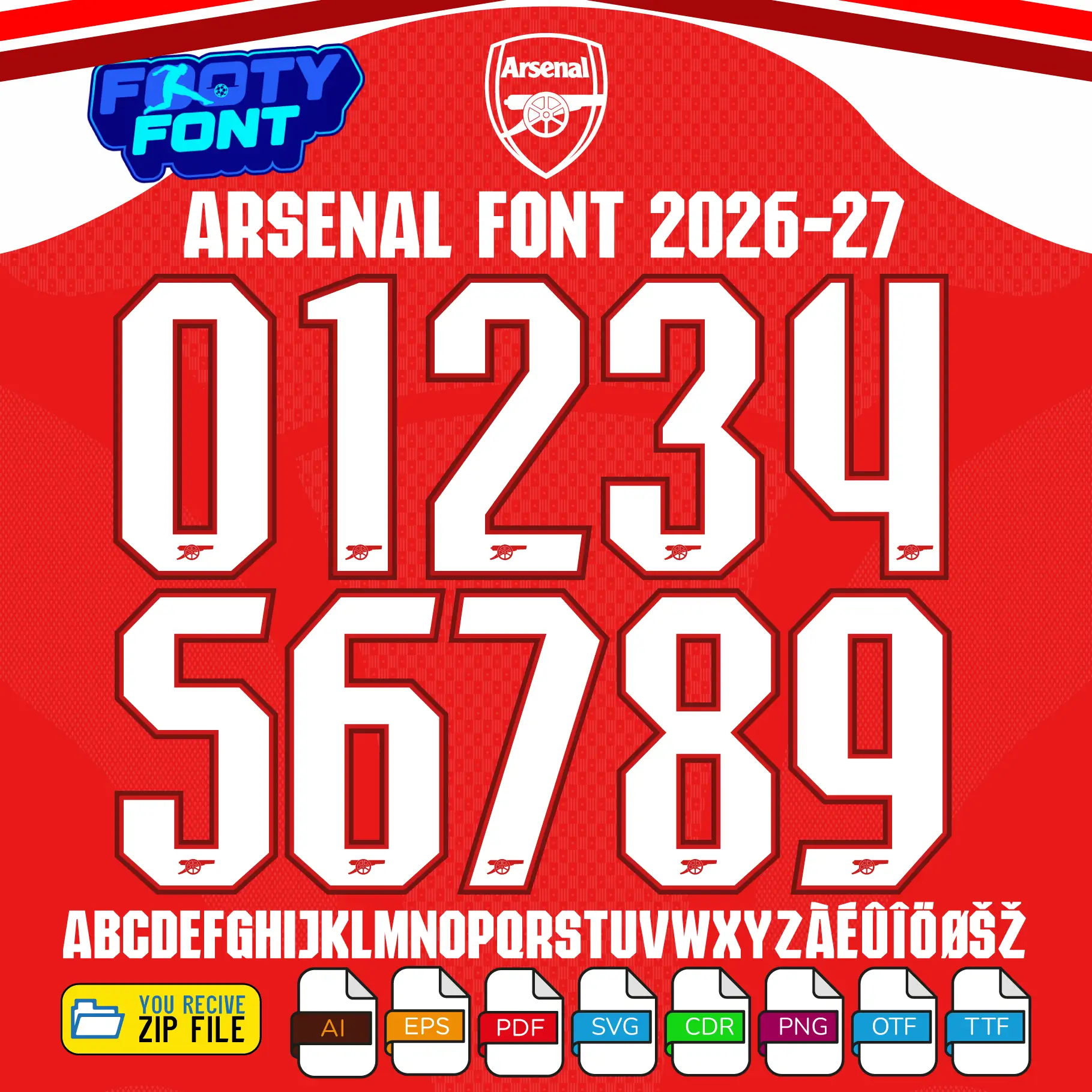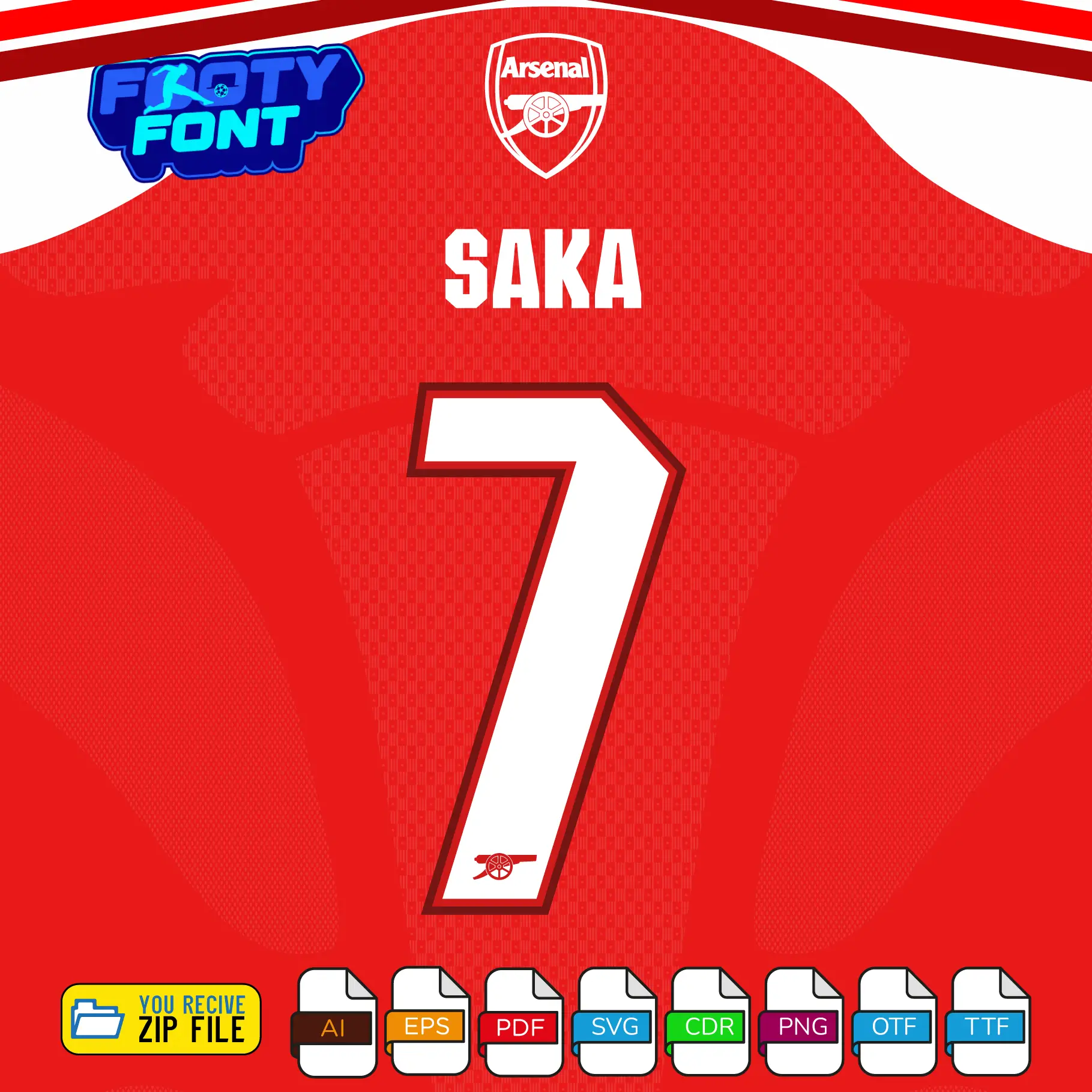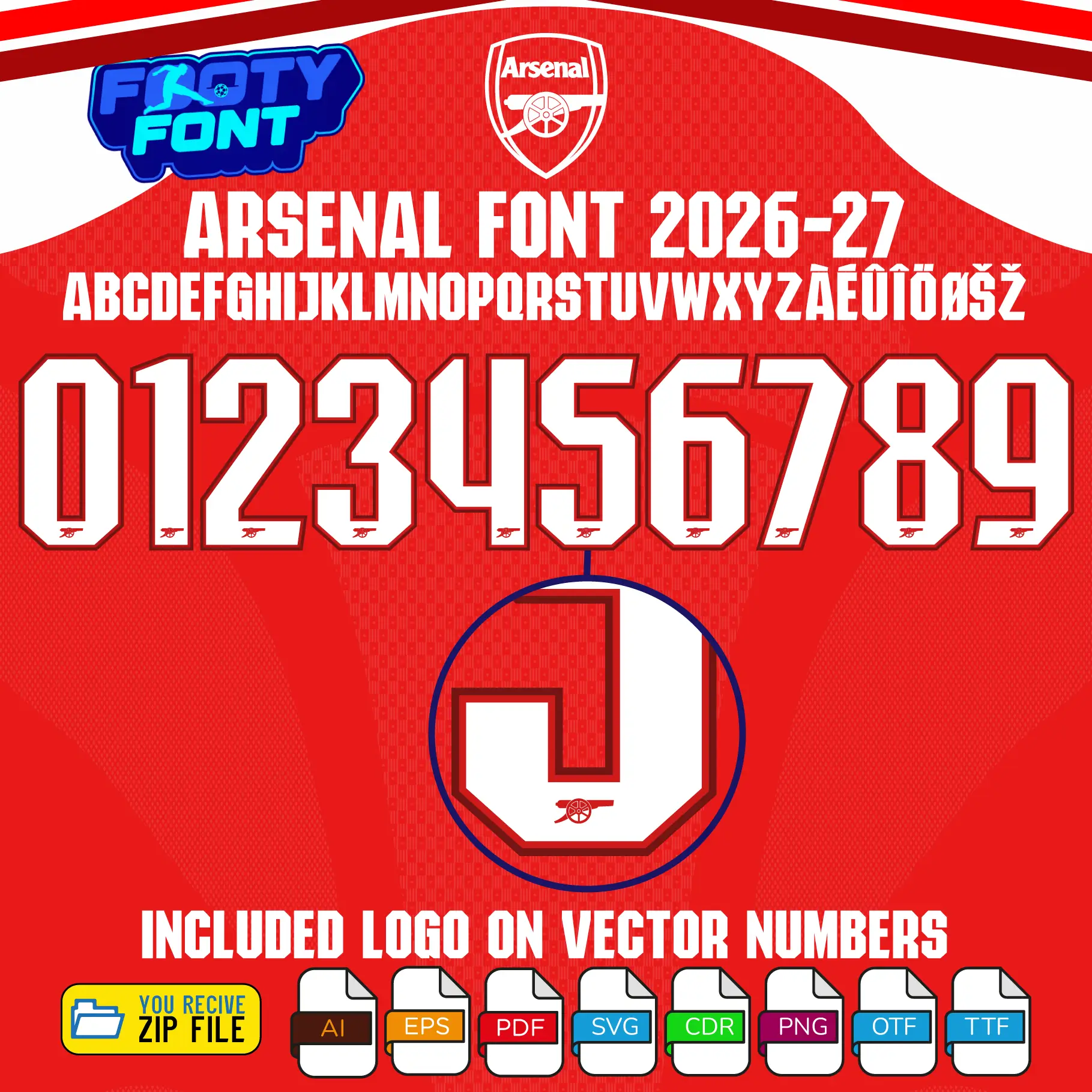
Arsenal 2026-27 Football Font
Bring the magic of the Emirates to your designs with this font football, inspired by the Arsenal 2026/27 cup kit. This high-quality typeface is meticulously designed to replicate the sleek, modern lettering worn by the Gunners during their UEFA Champions League and domestic cup campaigns. It features striking, geometric white numbers with a sharp dark red outline that perfectly complements their iconic red home jerseys under the stadium lights.
This font captures the elite style worn by global superstars like Bukayo Saka, Martin Ødegaard, and Declan Rice. As Arsenal prepares to compete for European and domestic glory, this cup font is an absolute must-have for fans creating custom jersey designs, digital art, streetwear, or matchday posters.
A complete look at the Arsenal Font Cup 2026-27, featuring the full number set and a real-world application showcasing custom typography.